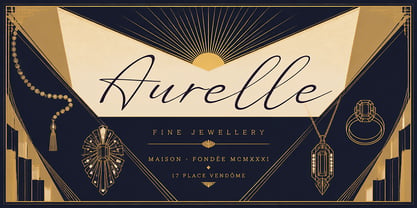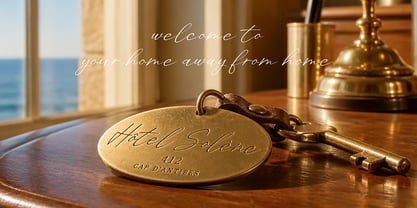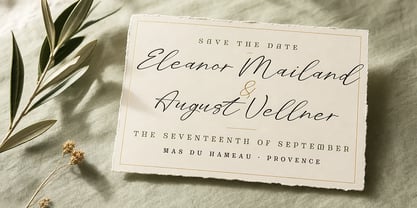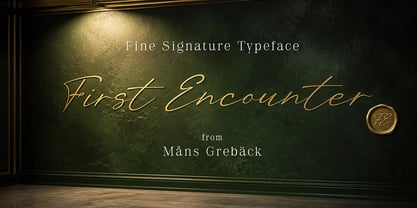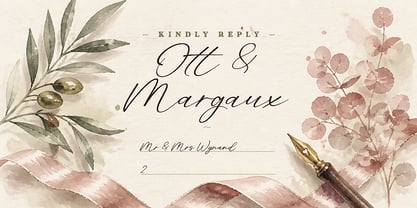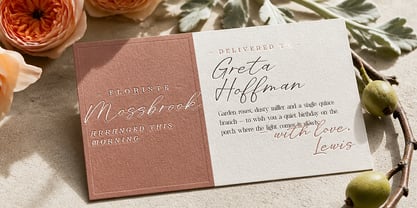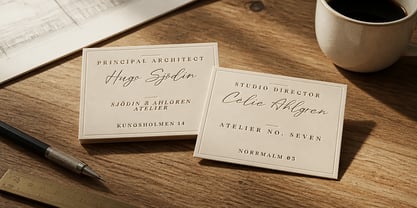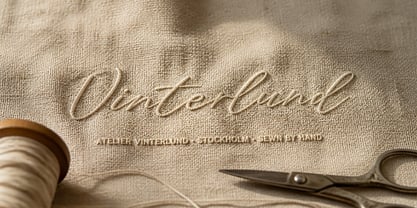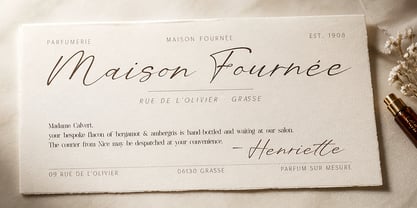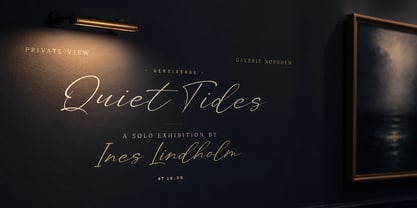
First Encounter
First Encounter is a fine signature handwriting script — the kind of cursive you'd recognise as a real person's hand on a card or a contract.
Thin, even pen-pressure throughout, with natural connecting strokes between letters and a small upward bounce in the baseline that keeps a single line from feeling rigid. Capitals carry confident loops; lowercase descenders extend just enough to give phrases air. The italic carries a slightly stronger forward lean.
Picture it as the inked sign-off at the bottom of a letterpress invitation, or running across a small velvet jewellery hangtag.
The font is built with advanced functionality and guaranteed top-notch quality, containing stylistic and contextual alternates, ligatures and more automatic and manual features; all to give you full control and customizability.
It has extensive lingual support, covering all Latin-based languages, from North Europa to South Africa, from America to South-East Asia. It contains all characters and symbols you'll ever need, including all punctuation and numbers.